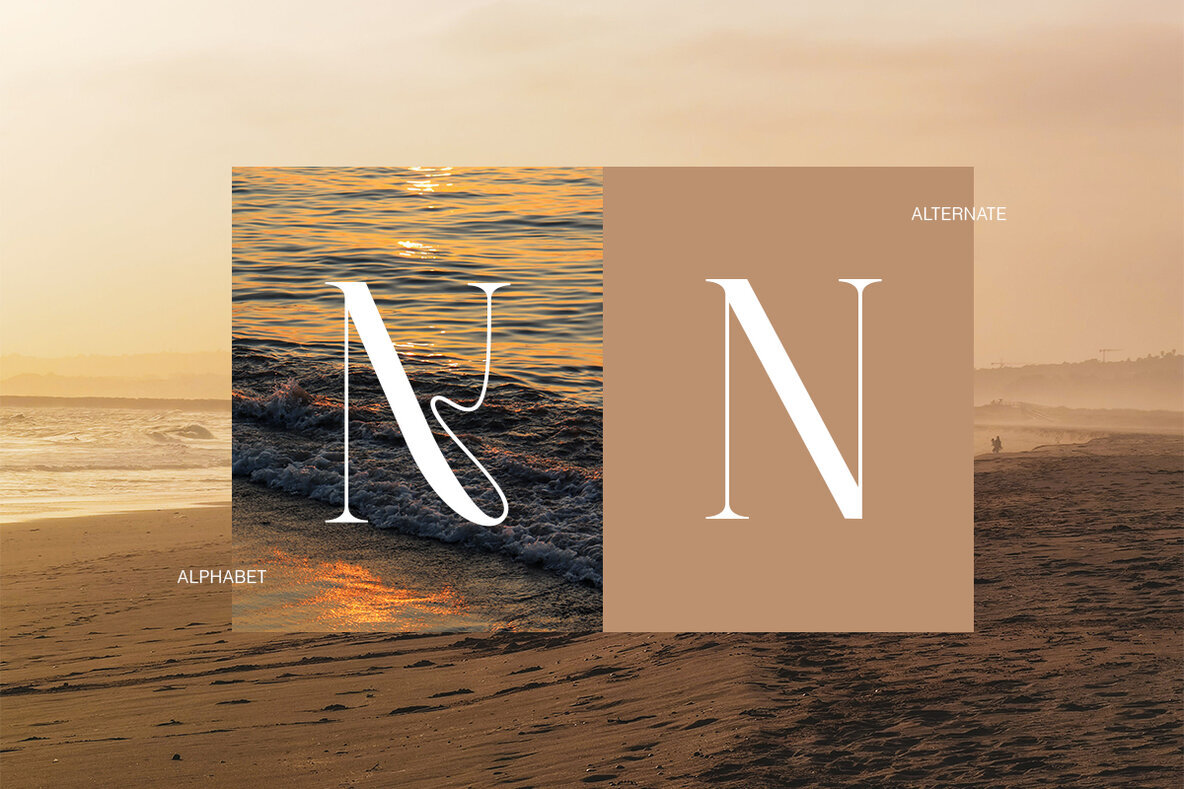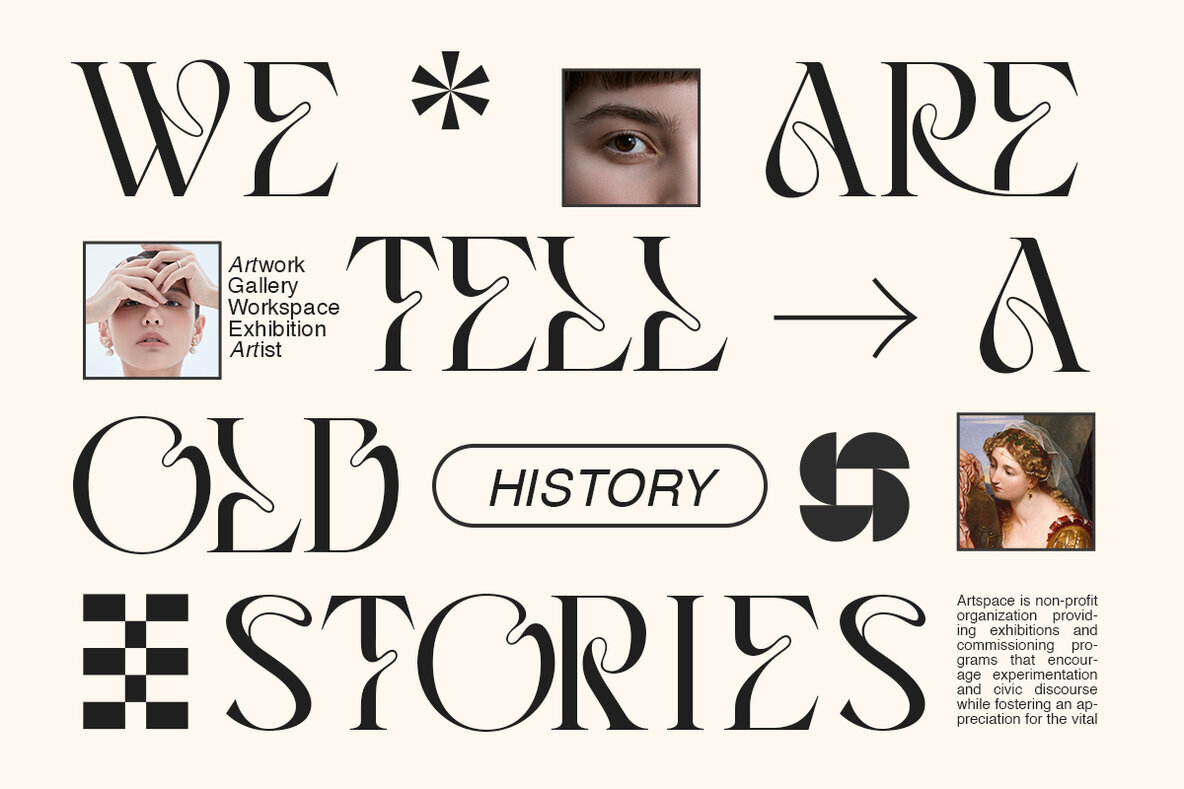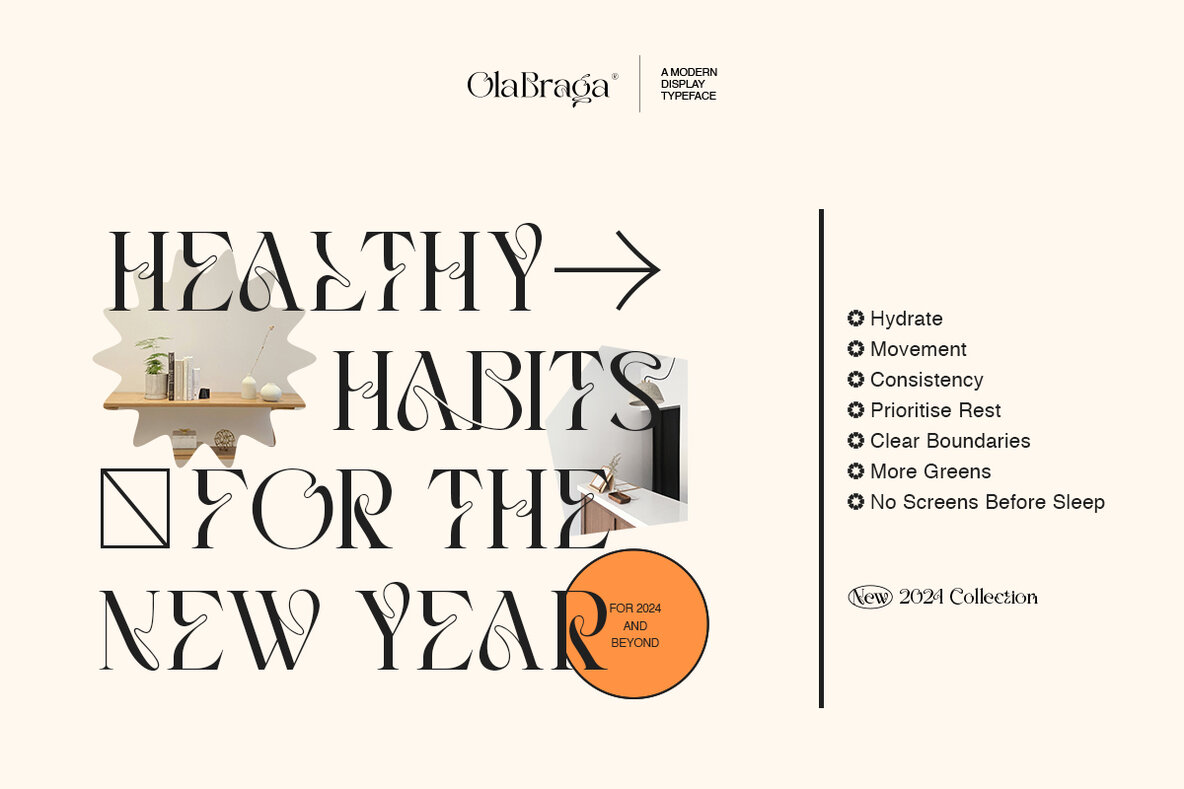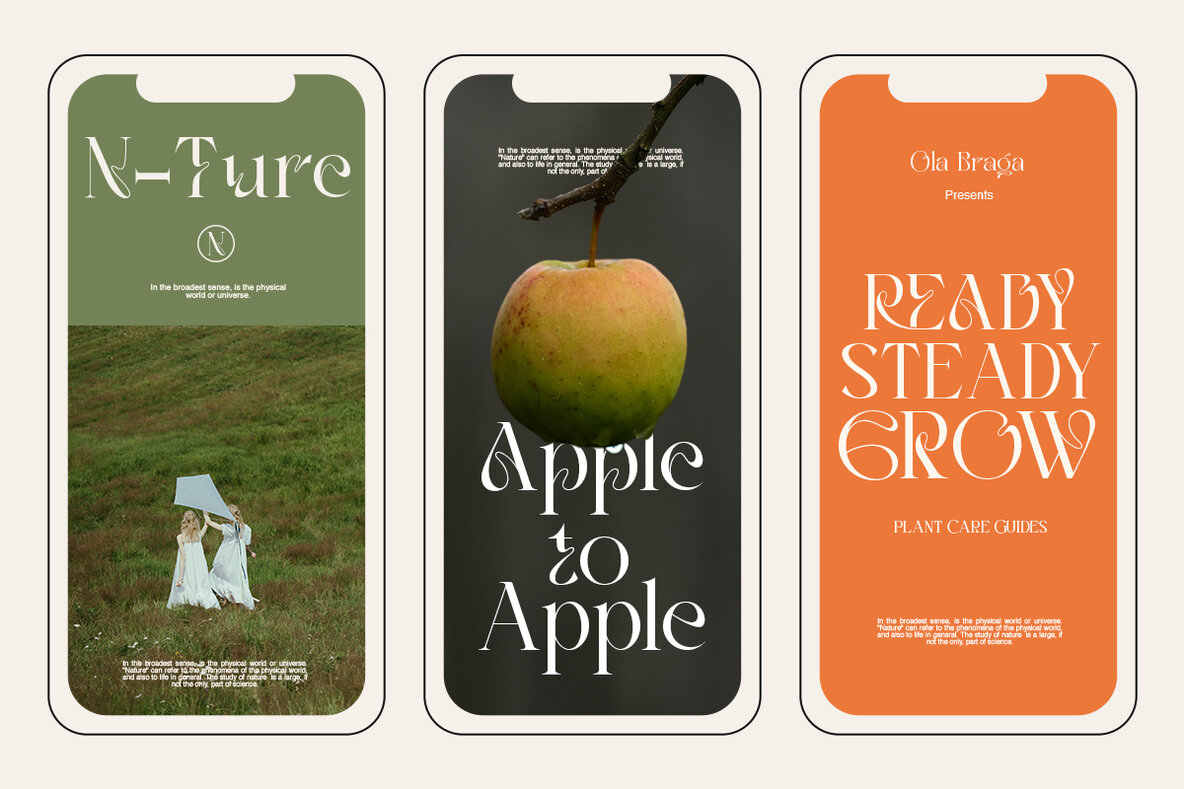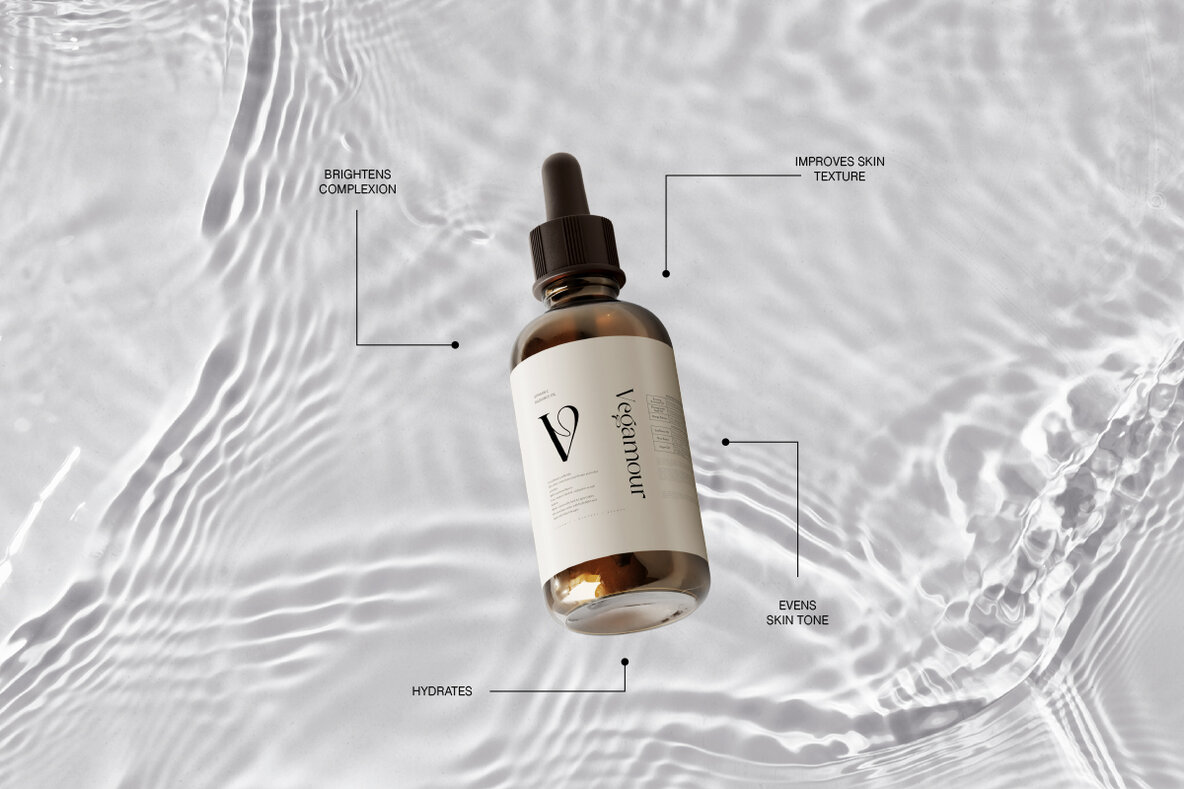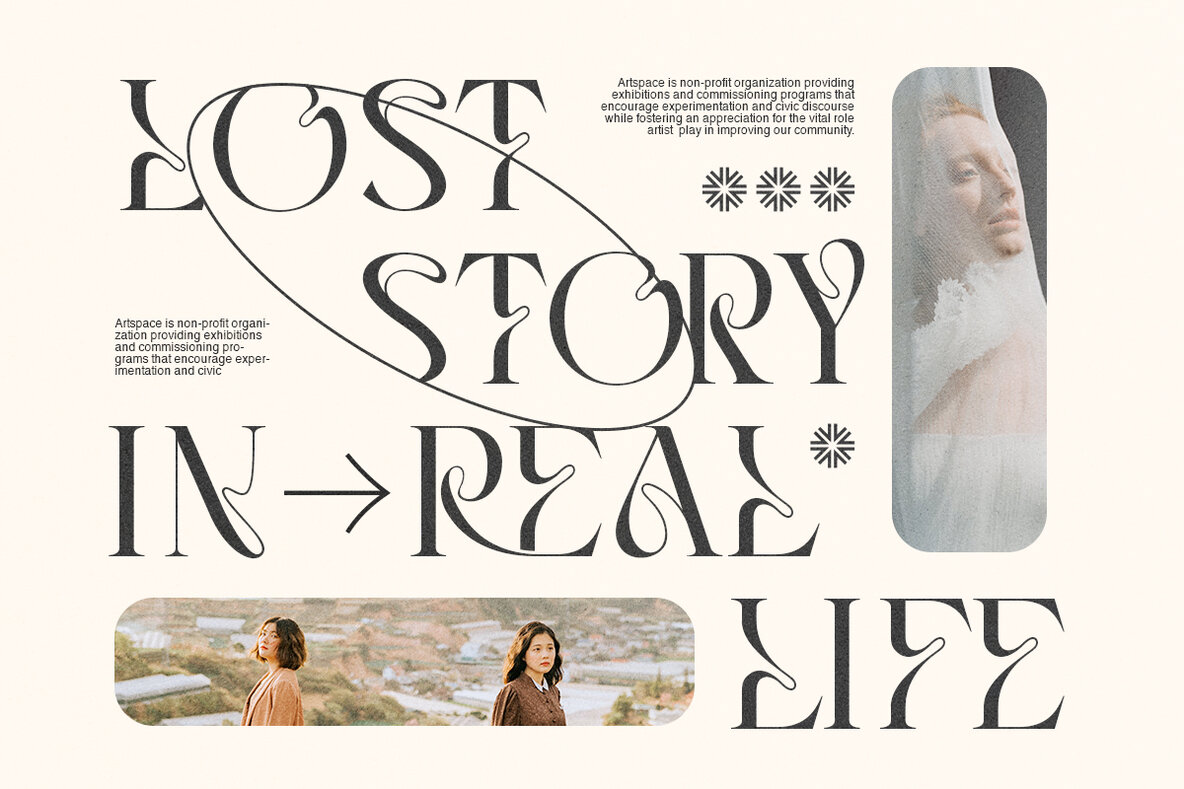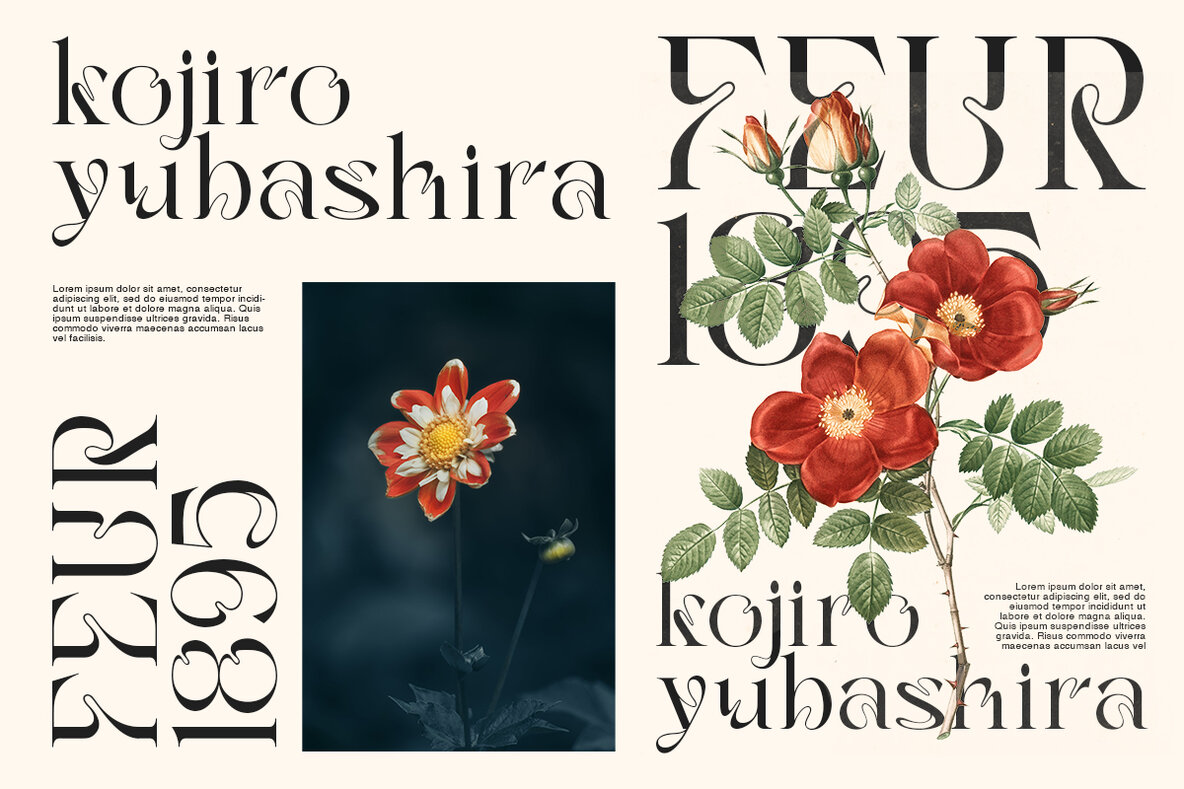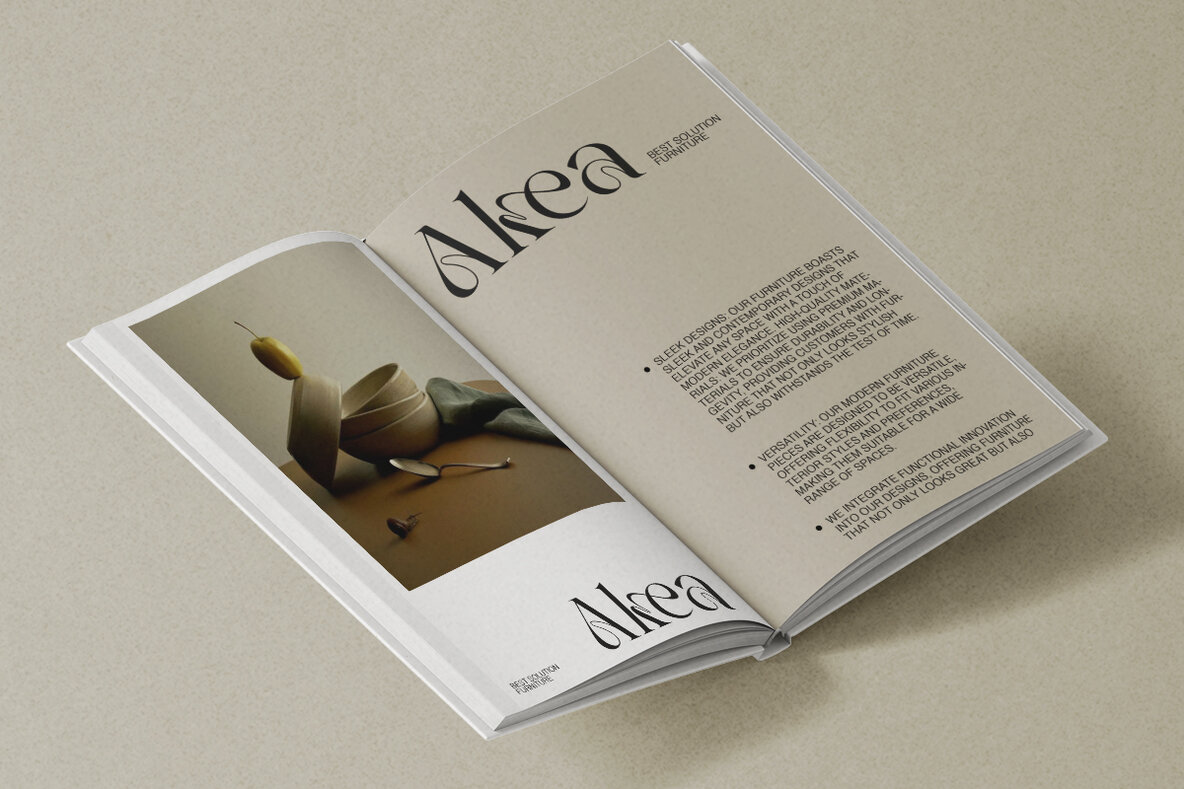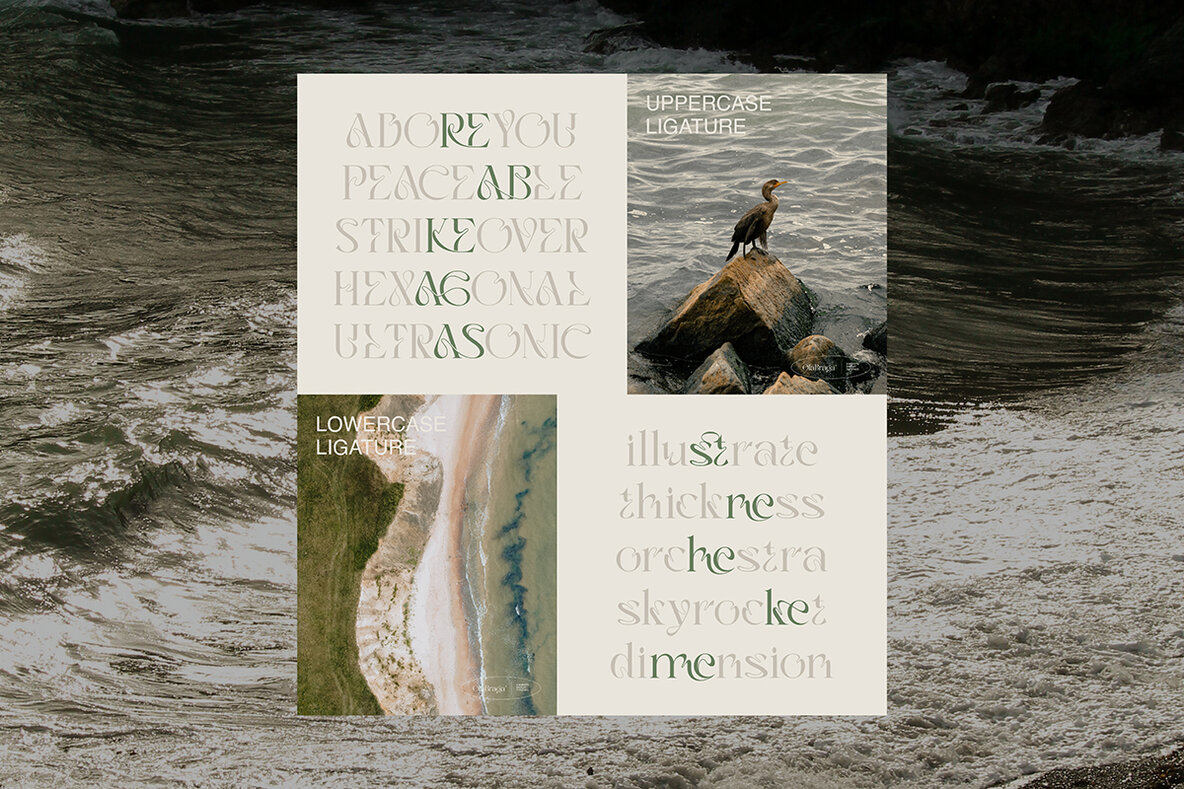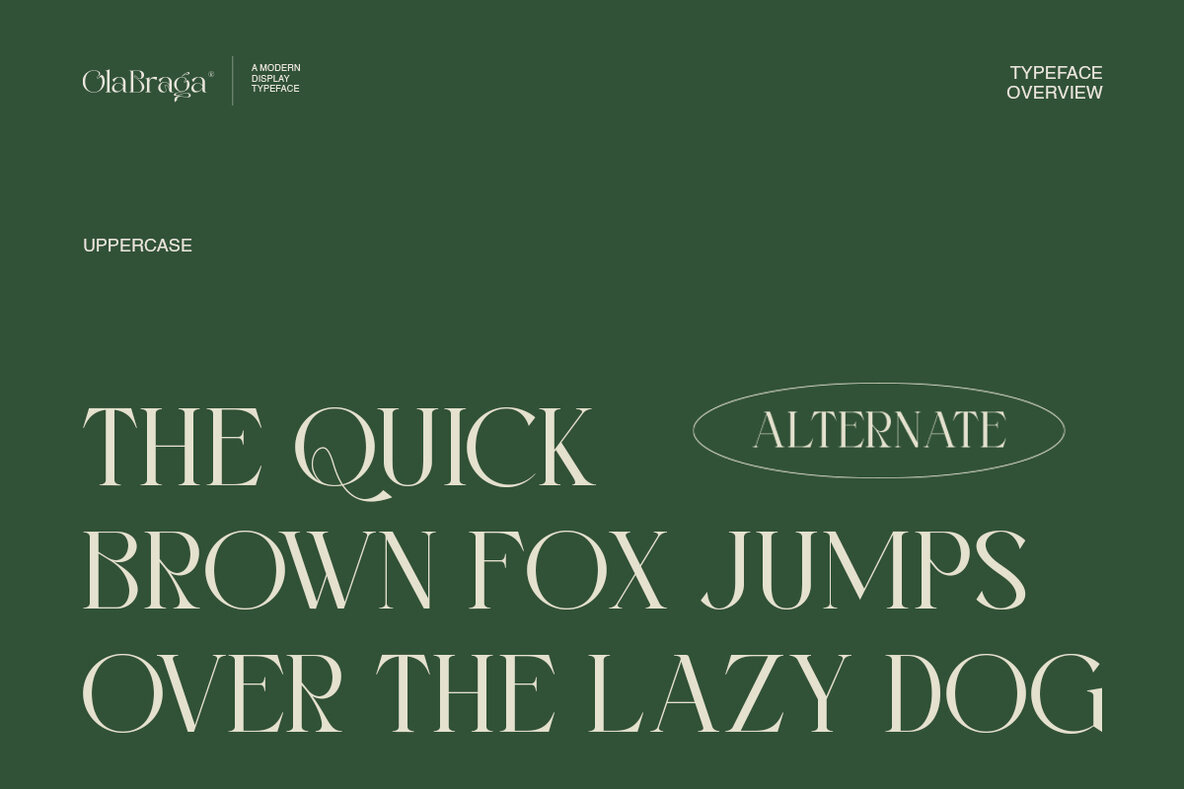
Ola Braga Font
Ola Braga is a captivating serif font collection featuring elegant curves that bring unforgettable beauty to each character. This font is a manifestation of perfection and grace, adding a special touch to every design. Elevate your designs with Ola Braga and let your creativity shine!Ola Braga: Elegant Serif Font Collection